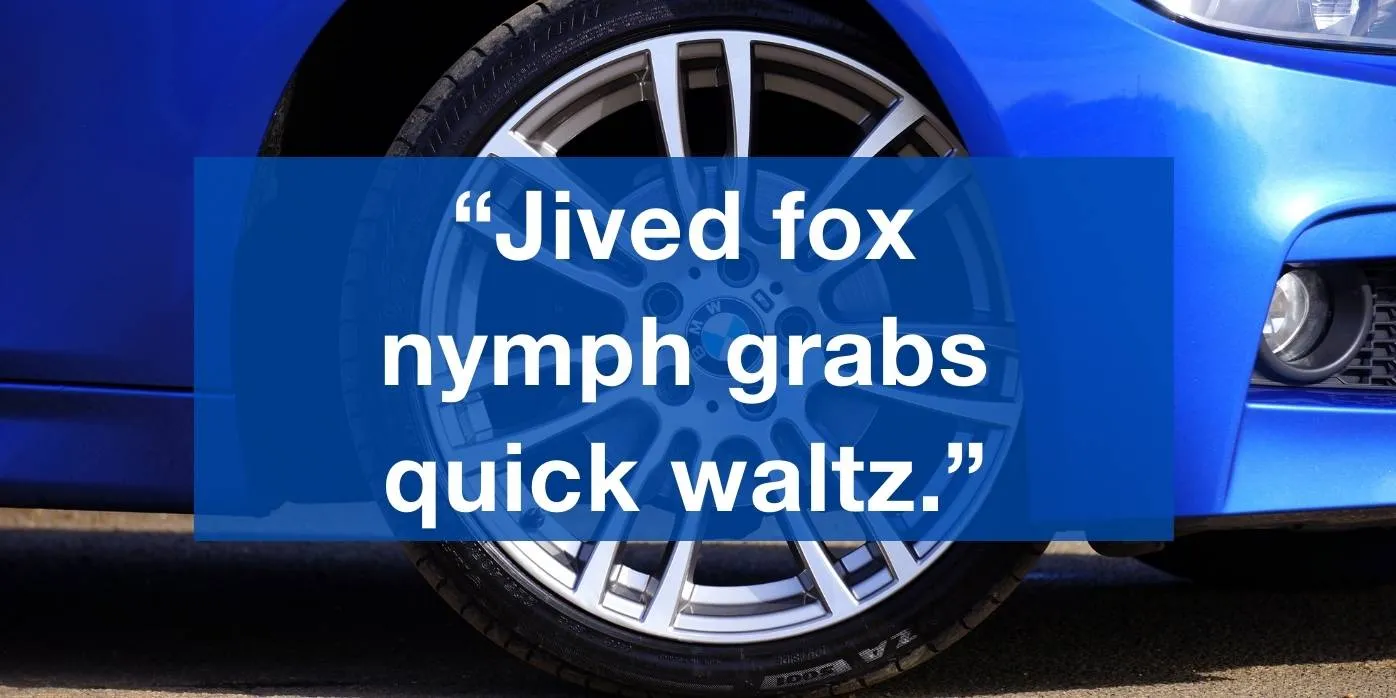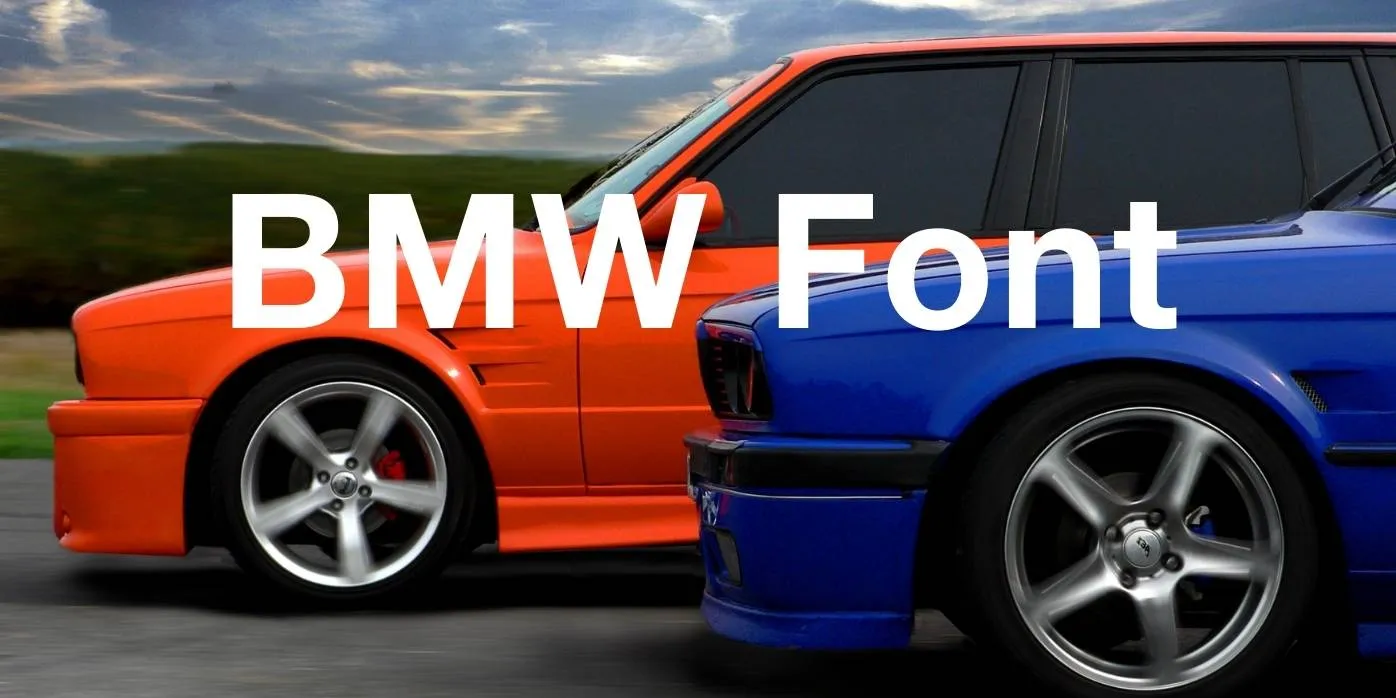
BMW Font
BMW Font was developed and published by two designers named Max Miedinger, and Eduard Hoffmann. This typeface belongs to the Sans-Serif typeface. The typeface was released in the year 1954. This font is available in different weights like light, medium, and bold.
This cozy Font family includes a total of 5 fonts. This typeface is perfect for Vehicles. This typeface is best for different software like Adobe Photoshop. This awesome Font has become popular over the years and it is used by several brands all over the world.
Cocogoose Font is similar to this typeface. This typeface has clean swashes and modern look styles. This Font is perfect for logos, headlines, and brands. This attractive Font is a great option for those who are looking for a modern Sans-Serif font.